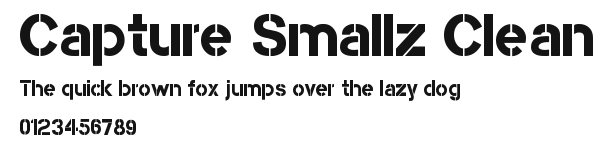
• Font Name: Capture Smallz Clean
• Full Font Name: Capture Smallz Clean
About Capture Smallz Clean.ttf
Capture Smallz Clean.ttf is a modern, elegant sans-serif font designed for ultimate readability and visual harmony. Perfect for branding, headlines, web design, and print materials.